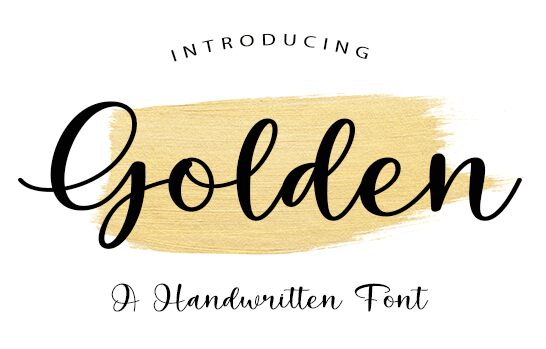
Golden
Golden, by Wahyu Studio, is a semi-light calligraphy font that elegantly blends traditional artistry with modern flair. Its fluid and expressive strokes evoke a sense of bespoke craftsmanship, making it an ideal choice for invitations, branding, and artistic projects longing for a personal touch.
Golden's versatility extends to digital and print mediums alike, offering designers the perfect tool to infuse their work with both sophistication and character.
Embrace the charm of Golden to elevate your creative endeavors with its timeless appeal.